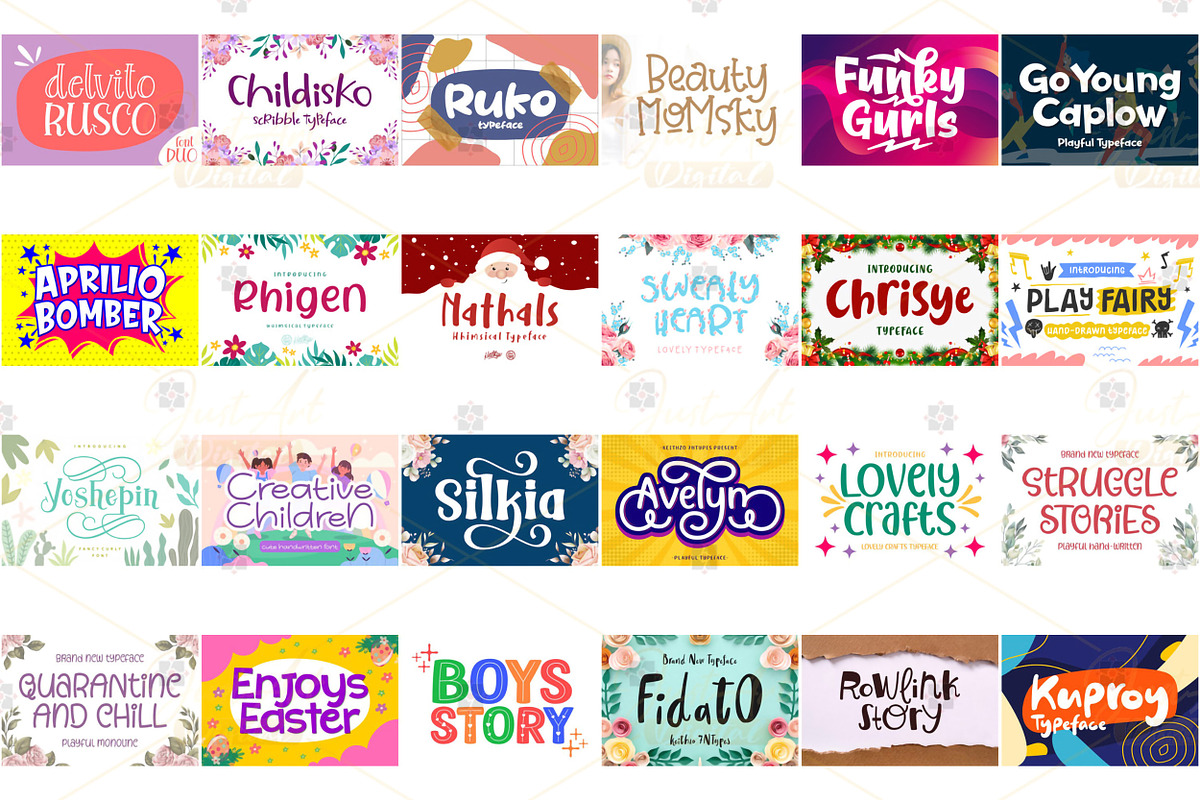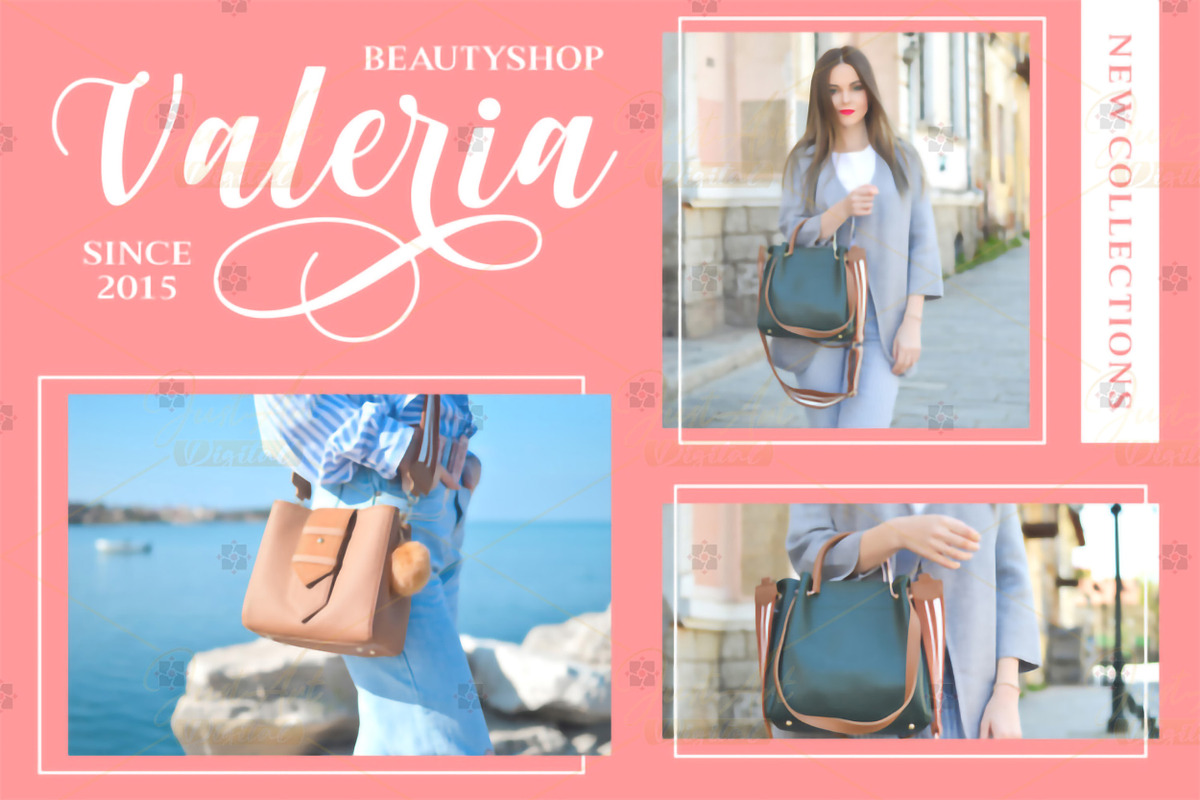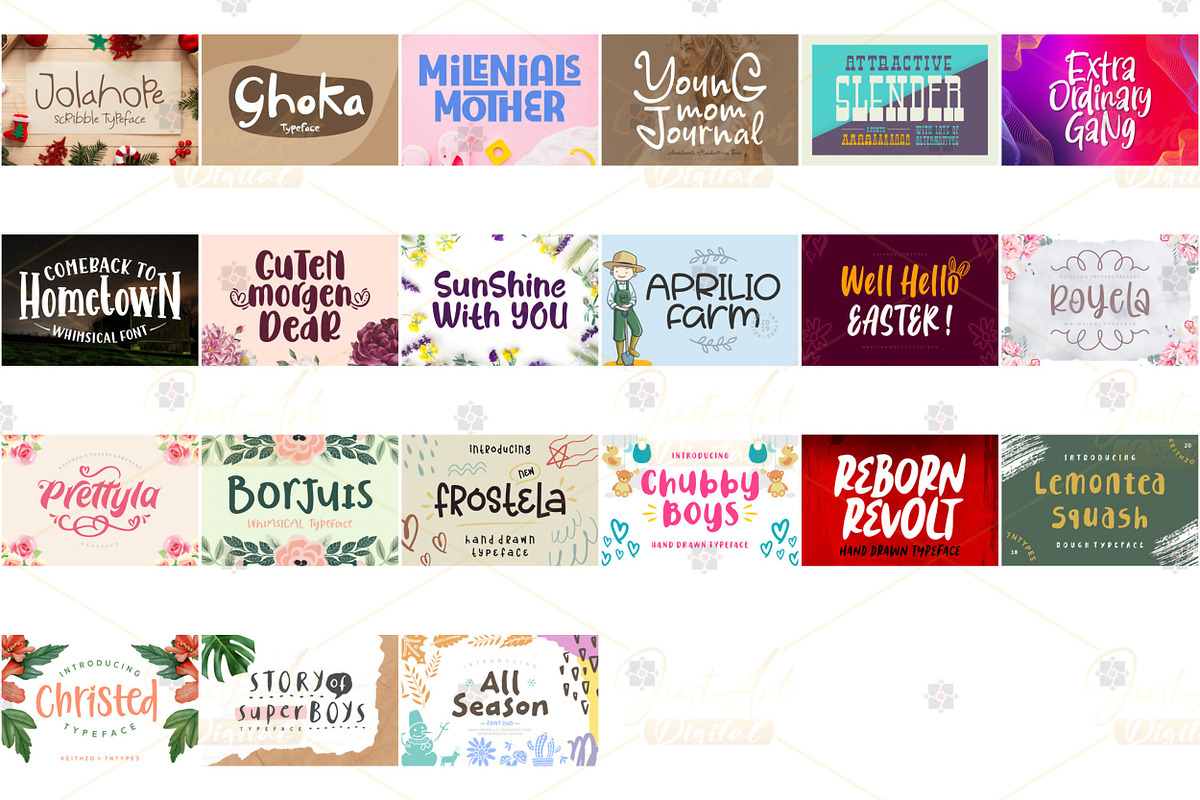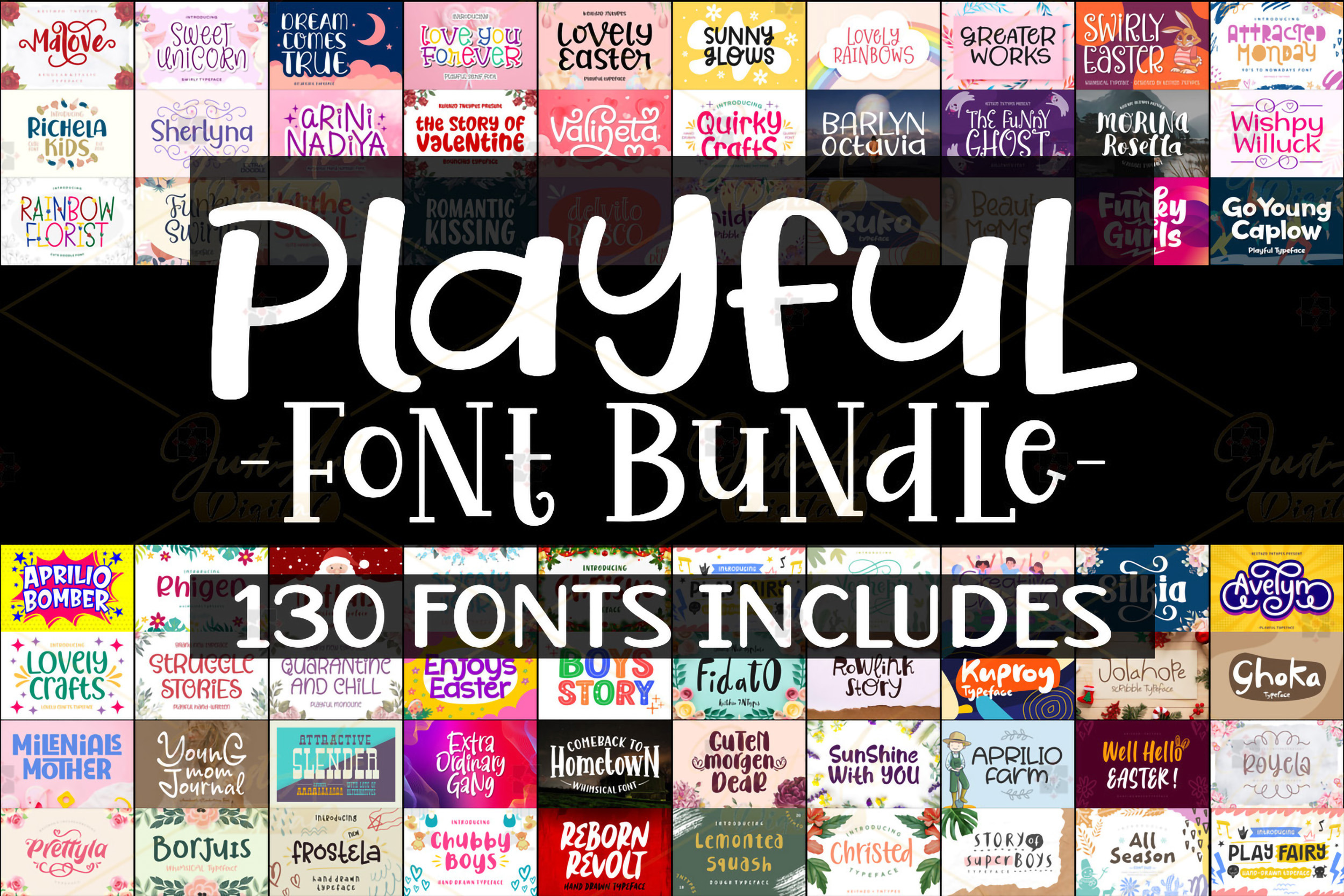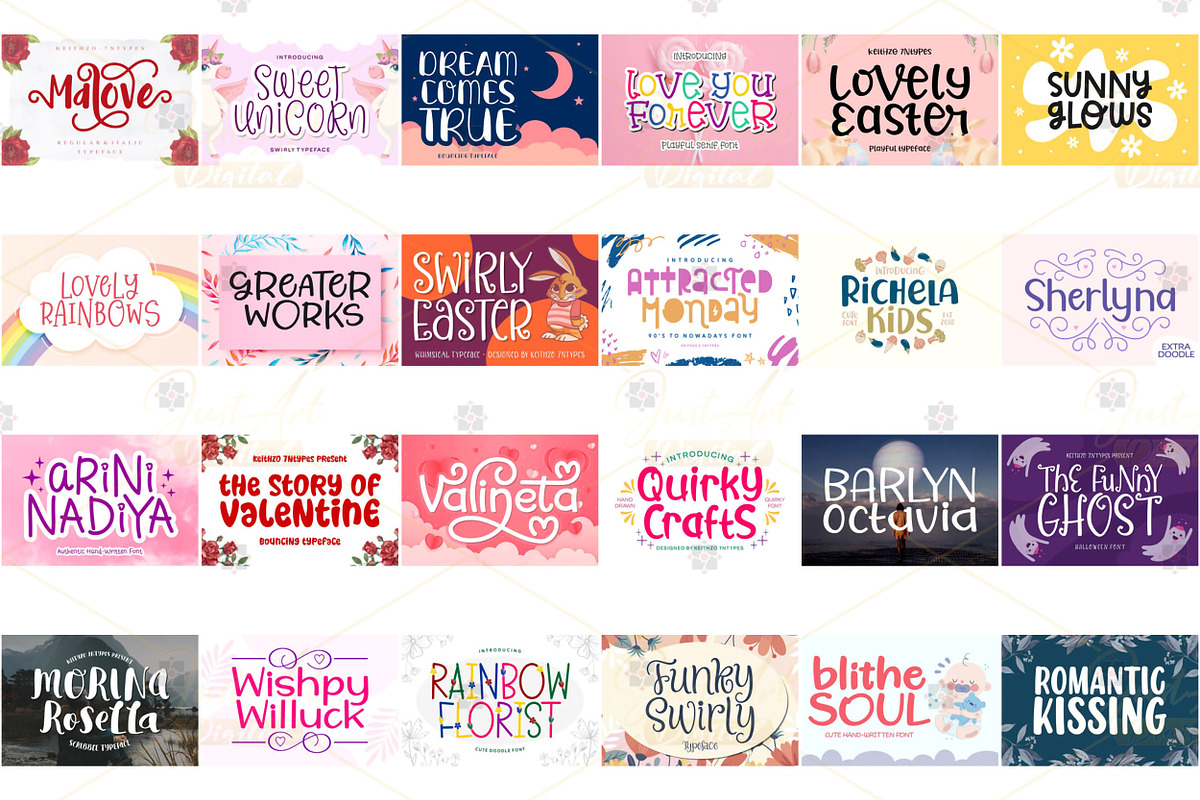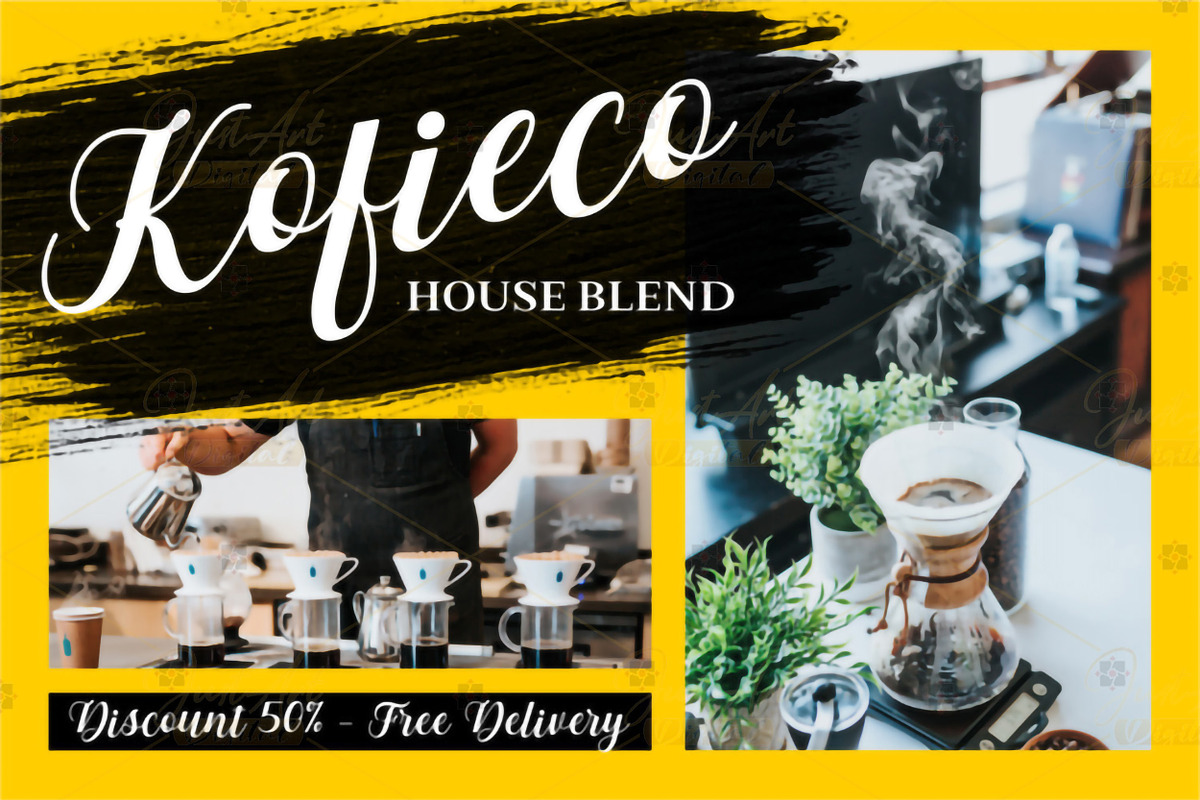
Playful Font Bundle v2
"Playful Font Bundle: A Treasure Trove for Creative Projects
★ Overview of the Bundle
The Playful Font Bundle is a meticulously curated collection of 130 exceptional fonts, designed to elevate your crafting projects to new heights. This bundle offers a diverse selection of fonts, catering to various creative needs and ensuring versatility for designers, artists, and hobbyists alike.
▲ Key Features:
Diverse Font Styles: The bundle includes a wide range of styles, from playful and cute to elegant serif, script, and handwritten fonts.
☆ Exploring the Font Styles
◆ Playful Fonts
These fonts inject a sense of fun and creativity into your designs, perfect for children’s projects, party invitations, and whimsical branding.
▶ Cute Fonts
Charming and endearing, these fonts work wonderfully for personalized gifts, scrapbooking, and social media graphics that require a touch of sweetness.
□ Beautiful Serif Fonts
Elegant and timeless, serif fonts in this bundle provide a classic touch to your projects. They’re ideal for logos, book covers, and formal invitations.
● Script and Handwritten Fonts
These fonts add a personal and artistic flair to your creations, mimicking the look of hand-drawn lettering. Use them for calligraphy-inspired designs, wedding stationery, or branding materials.